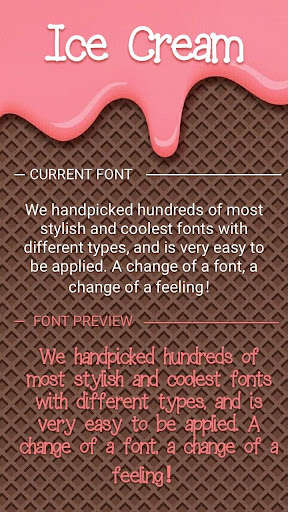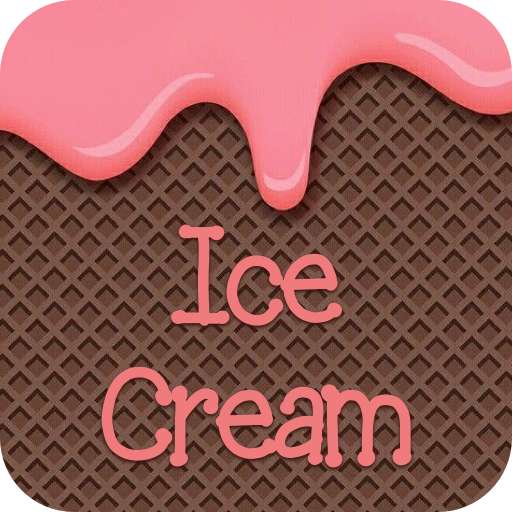
IceCream allows all users to change the system font of your phone or tablet .
You can find the amazing and perfect font style which fits your taste well.
Change your entire phone font into IceCream.
Come and experience the customized font for you.
The feature of IceCream is compatible ability.
Lovely, sweet and colorful as you wish.
Hundreds of selected fonts style from handwritten fonts like IceCream, such as cute, darker, comic, galaxy, love, pink, sexy written, colorful fonts, clean fonts, candy fonts, etc.